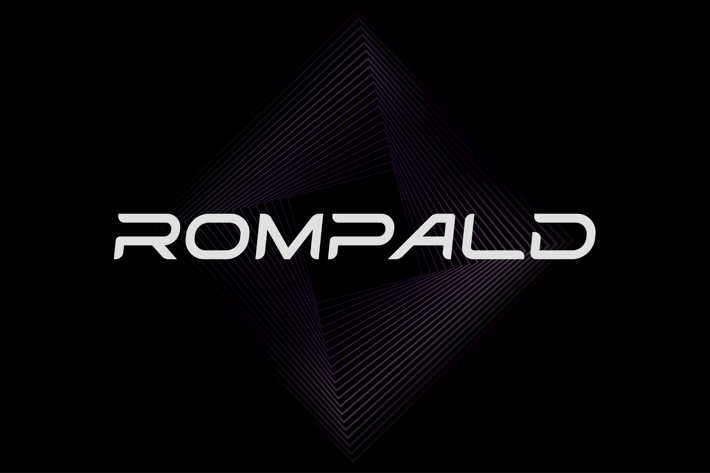
Rompald - Modern Display Font
Introducing our new product Rompald Font - Modern Display Font
Rompald Font- Modern Font is a bold and authentic display font. The font is suitable for any branding project like logo,
t-shirt printing, esport, and many more. outstanding in a wide range of contexts.